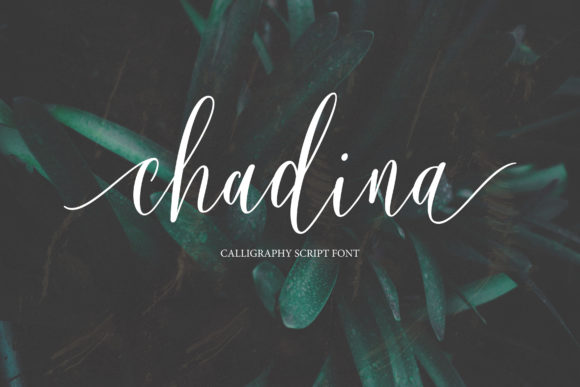
Chadina Script: Crafting Authenticity with a Modern Calligraphy Font
In the world of design, typography often acts as the silent narrator of your brand's story. While bold sans serif fonts and structured serif fonts handle the heavy lifting of information, there is a specific category of typeface designed to evoke emotion, elegance, and a human touch. Chadina Script is a prime example of this. It is a premium font that bridges the gap between the fluidity of traditional penmanship and the clean demands of modern typography. For designers, entrepreneurs, and creatives seeking a typeface that feels both personal and polished, understanding how to wield a script font like Chadina is essential for elevating a project from ordinary to memorable.
The Personality of Modern Calligraphy
Chadina Script is not just another generic handwritten font; it is a carefully crafted display font designed to mimic the natural flow of ink on paper. The visual characteristics of this typeface are defined by its smooth curves and stylish letterforms. Unlike rigid block letters, the characters in Chadina connect in a way that feels organic, yet it avoids the chaotic illegibility often found in rougher script styles. It possesses a romantic flair, making it an ideal candidate for projects that require a sense of intimacy or luxury.
The appeal of Chadina lies in its versatility within the script category. It manages to look authentic without sacrificing legibility. This balance is crucial for modern branding. Whether you are designing a logo for a boutique clothing line or creating headers for a lifestyle blog, the font brings a level of sophistication that suggests a high-end finish. It carries the weight of a commercial font but delivers the warmth of a custom signature, allowing brands to establish a unique voice that feels approachable yet professional.
Strategic Applications Across Industries
Knowing where a creative font fits into your workflow is half the battle. Chadina Script shines brightest when used for display purposes rather than long-form body text. Its primary strength lies in its ability to grab attention and set a specific mood. Here is how different professionals can leverage this typeface in their projects:
Branding and Logo Design
For small business owners and entrepreneurs, logo design is often the first major hurdle. A logo needs to be recognizable and reflective of the company's values. Chadina Script offers a fantastic solution for brands in the fashion, beauty, food, or wedding industries. Its flowing nature suggests elegance and care. When used as a primary wordmark, it creates a strong visual identity. However, it is vital to ensure the font is legible at the size it will be most frequently used, such as on a website header or a business card.
Editorial and Publishing
Bloggers and publishers can use Chadina to break the monotony of standard text. In editorial design, visual hierarchy is key to guiding the reader’s eye. Using Chadina for pull quotes, drop caps, or section headers can add a layer of personality to a magazine layout or a blog post. It creates a contrast between the serious, readable body copy (usually a sans serif or serif font) and the expressive, decorative headers, making the reading experience more dynamic.
Product Packaging and Marketing
If you are involved in packaging design, you know that the font choice can influence a customer's split-second decision to pick up a product. Chadina works exceptionally well on labels, letterheads, and posters. Imagine a coffee bag label or a candle box; the script font adds a tactile quality to the visual design, suggesting that the product inside is handcrafted or artisanal. It is also highly effective for social media graphics, where a stylized quote or sale announcement needs to stand out in a crowded feed.
Personal Events and Crafting
Beyond commercial use, Chadina is a favorite among crafters and hobbyists. For wedding invitations, nameplates, or personalized gifts, the font provides the romantic and celebratory tone required for such occasions. The smooth characters ensure that even intricate designs remain readable, which is a common concern with cursive typefaces.
Design Mechanics: Pairing and Hierarchy
Using a display font effectively requires an understanding of font pairing. Because Chadina Script is ornate and stylistic, it should rarely stand alone for all text needs. The rule of thumb in modern typography is to pair a decorative font with a neutral one. For example, combining Chadina with a clean sans serif font like Montserrat or Open Sans creates a balanced visual hierarchy. The script font draws the eye to the headline, while the sans serif provides the necessary clarity for details and descriptions.
Visual hierarchy is not just about size; it is about weight and style. Chadina allows you to create a distinct "voice" within your design. You can use it to highlight keywords or calls to action. However, readability considerations must always come first. If the text is too small, the intricate swashes of the script may blur together. Always test your designs at the actual scale they will be viewed, whether on a mobile screen or a printed poster.
Technical Utility and Licensing
For professional designers, the technical specifications of a font are just as important as its visual appeal. Chadina Script is PUA (Private Use Areas) encoded. In practical terms, this means you have full access to all the extra glyphs, swashes, and alternate characters included in the font file, regardless of the software you are using. This is a massive advantage for users who might not be working in advanced design software like Adobe Illustrator or InDesign. You can access these special characters even in basic text editors, allowing for greater customization of the lettering.
Try setting your headline in Chadina and pairing it with your existing body copy. Look at the spacing (kerning) and ensure the letters flow well together. Because it is a high-quality creative font, it holds up well in various contexts, but testing is the only way to be certain. Whether you are refreshing a logo, launching a new product line, or designing a wedding suite, Chadina Script offers the tools to create something that feels genuinely authentic and visually striking. It is more than just a typeface; it is a design asset that helps translate the feeling of your brand into a visual language your audience can instantly understand.